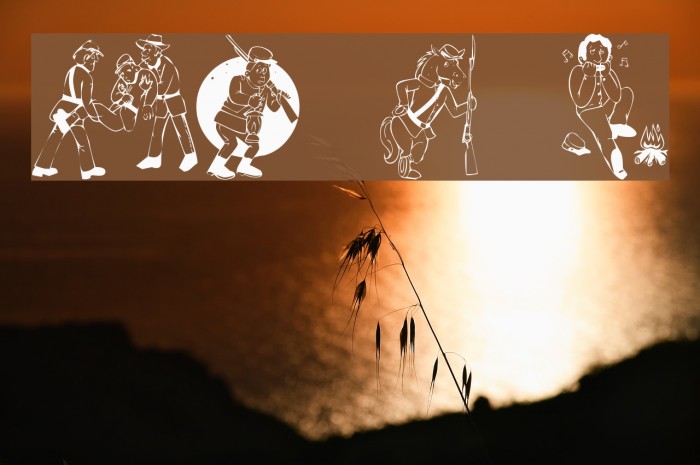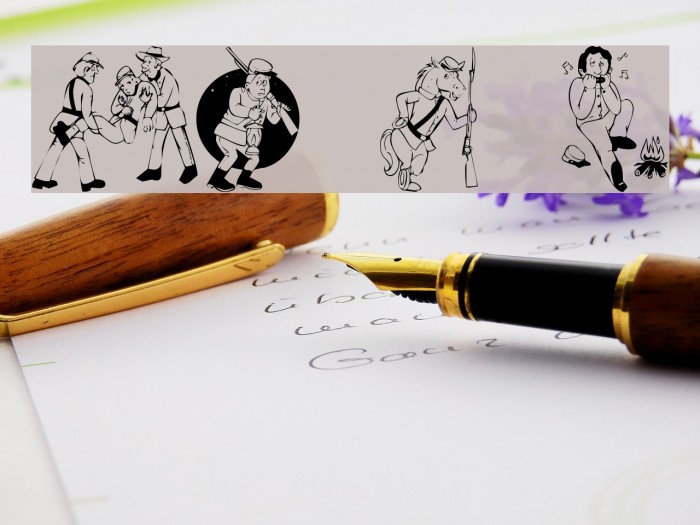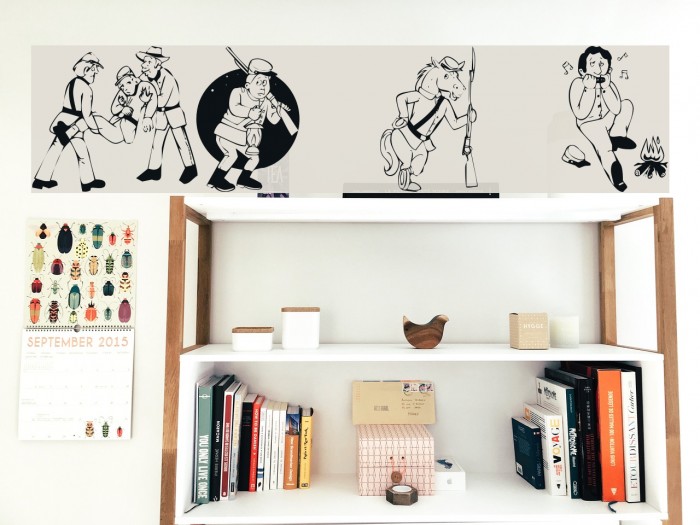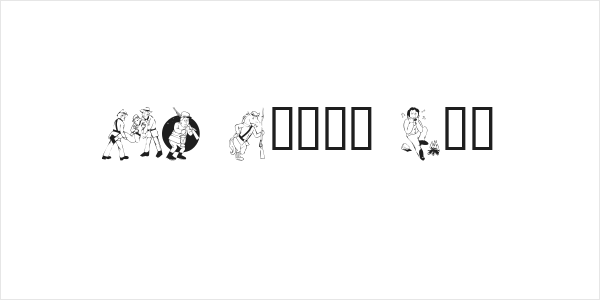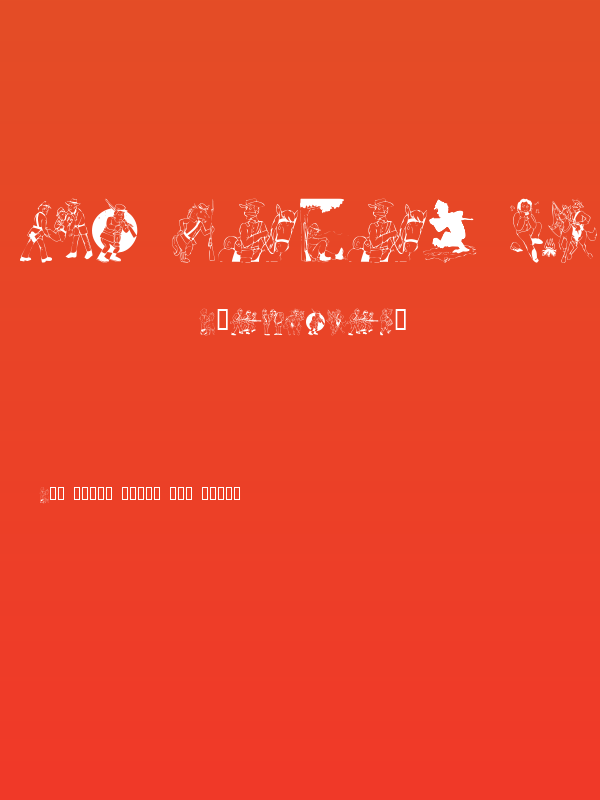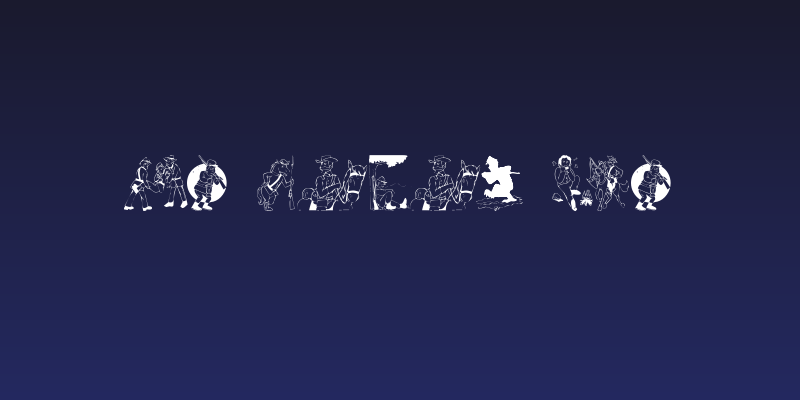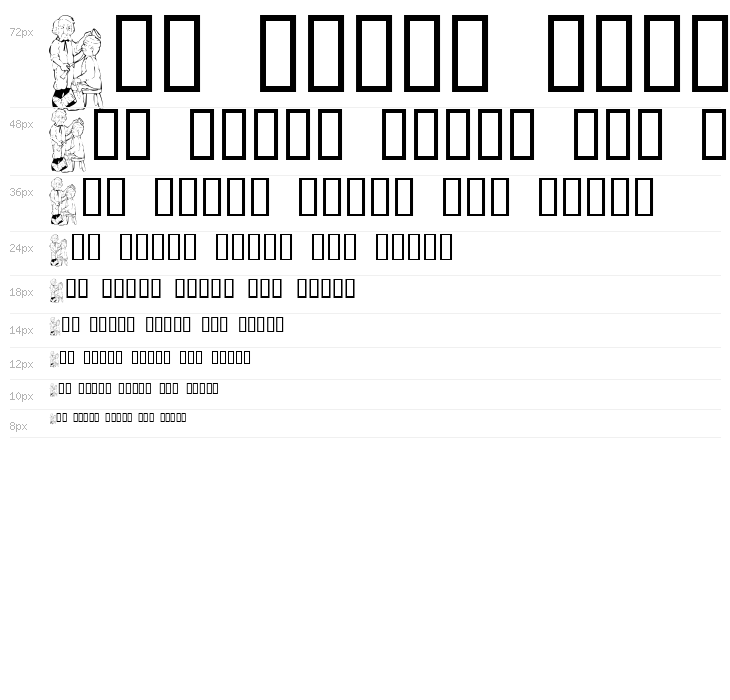
KR Civil War Font
KR Civil War Description
This is not a traditional font but rather a collection of illustrative characters depicting scenes and figures reminiscent of a historical or wartime theme. The characters are detailed and expressive, capturing various actions and emotions. Each character is unique, showcasing different attire and poses, which suggests a narrative or storytelling element. The style is reminiscent of classic comic or cartoon illustrations, with bold outlines and dynamic postures.
| Use Case | Illustrations, Educational materials, Storytelling |
| Proposed Projects | This set could be used for educational materials, historical comics, themed posters, or creative storytelling projects. |